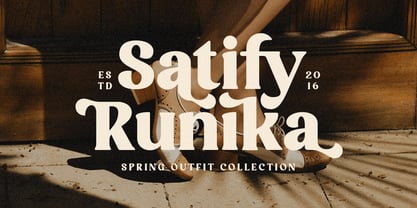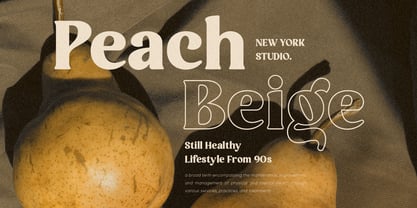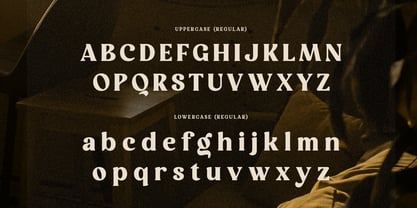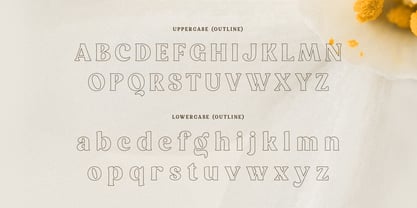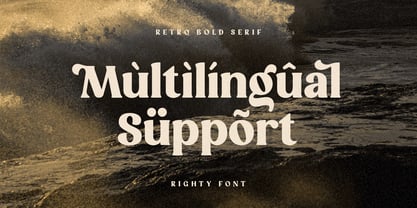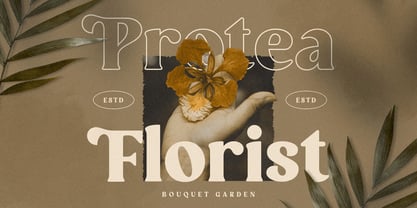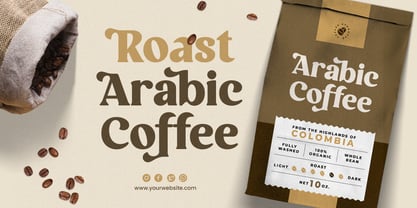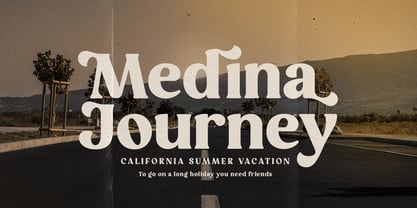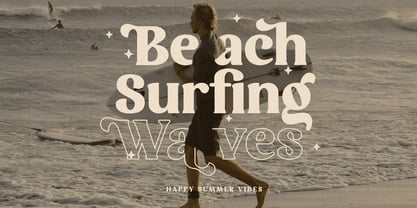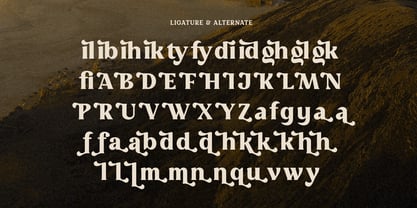
Righty
The Righty Font Family was designed by Zamroni Hamzah and published by Sensatype Studio. Righty contains 2 styles and family package options. More about this family
Righty - Retro Bold Serif
Righty is a bold retro serif font that brings the charm of vintage design to the modern age. With its strong, eye-catching letterforms and nostalgic flair, this font is perfect for logos, posters, headlines, and any design that needs a touch of timeless boldness. Inspired by classic serif fonts, Righty delivers a sense of authority while remaining playful and creative.
Ideal for branding projects, Righty stands out with its bold presence and retro vibes, making it suitable for various industries, from fashion and beauty to entertainment and beyond. Its boldness ensures your message will grab attention, while its retro roots provide an authentic, vintage feel.
Whether you're designing for a new product launch, retro-themed packaging, or an attention-grabbing headline, Righty offers the versatility and impact needed to make your designs truly memorable.
Righty Retro Bold Serif Font Features:
• Bold Ligature & Alternative Characters Ready
• Available with Regular & Outline Style
• Punctuation, Number, and Symbol
• Uppercase and Lowercase
• Multilingual Support
• Opentype Features